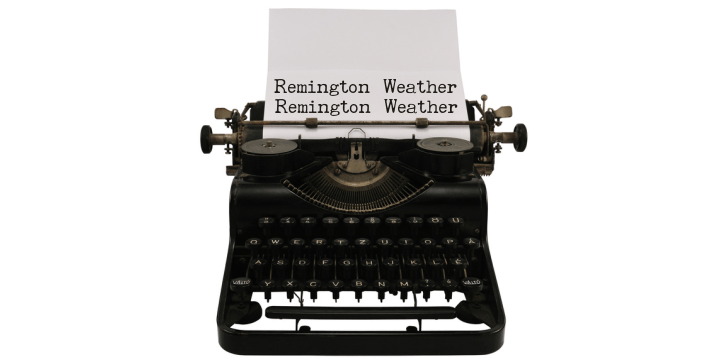
HomeFont BrosDistressedRemington Weather DistressedSerifHistorical Remington Weather FacebookXPinterestWhatsApp 1 of 1 About Remington Weather A typewriter font design, great for mimicking the effect of type writing older machines.  DOWNLOAD ON FONT BROSThis font is sold and delivered by Font Bros. Font Canyon may earn a commission if you buy through this link. People also explored Christmas Vintage Font Wobegone Braydon Font Skinny Creative Font Galapinos Font Dreamland Font Carabika Brownies Font Weetton Font Flattering Font 235 0 TagsRemington Weather Font Previous articleSheltonNext articleAfternoon Tea LEAVE A REPLY Cancel reply Comment: Please enter your comment! Name:* Please enter your name here Email:* You have entered an incorrect email address! Please enter your email address here Website: Save my name, email, and website in this browser for the next time I comment. Personal Use Free Mahisya Personal Use Free Read more about this font Gunplay Personal Use Free Read more about this font Ryujin Attack Personal Use Free Read more about this font Neuropol Personal Use Free Read more about this font BLOG Best Fonts for T-Shirt Design – Top 2025 Picks In 2025, t-shirt design has become more than just fashion—it's a form of self-expression. Whether you're... Free Fonts Risk: Why Free Fonts Can Be Dangerous for Designers Exploring Font Trends Where to Buy American Fonts Online in 2024